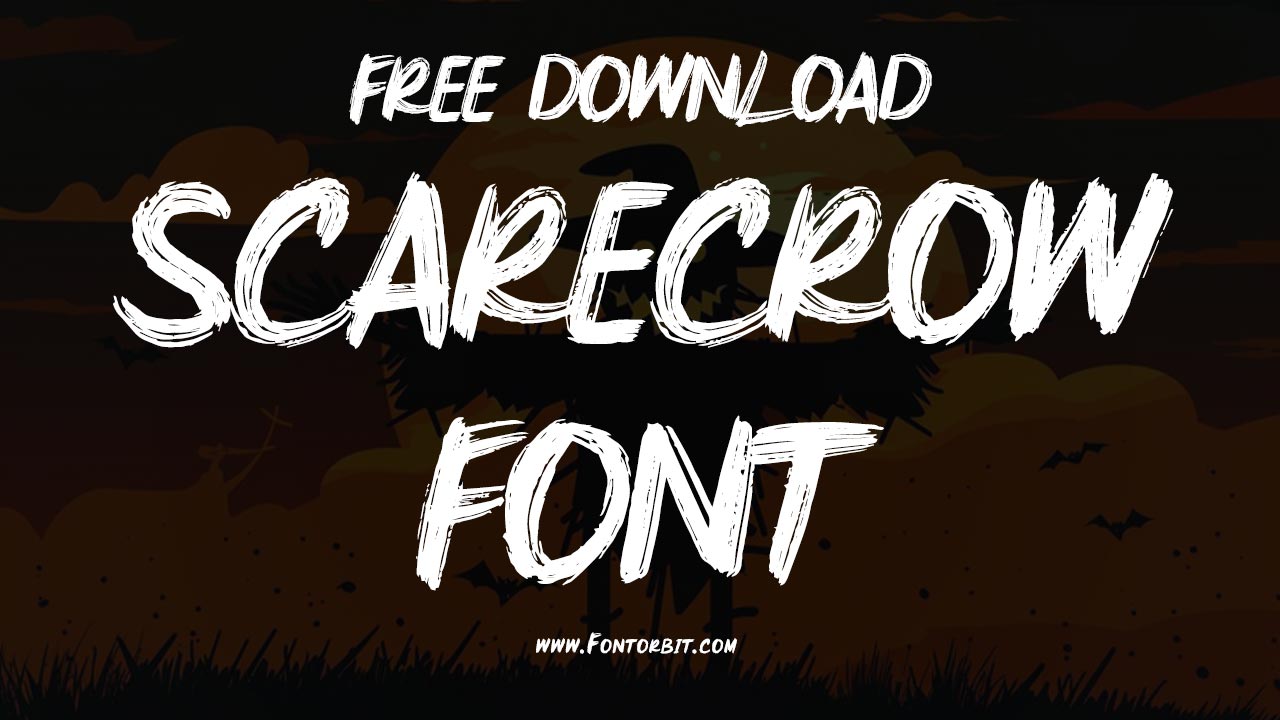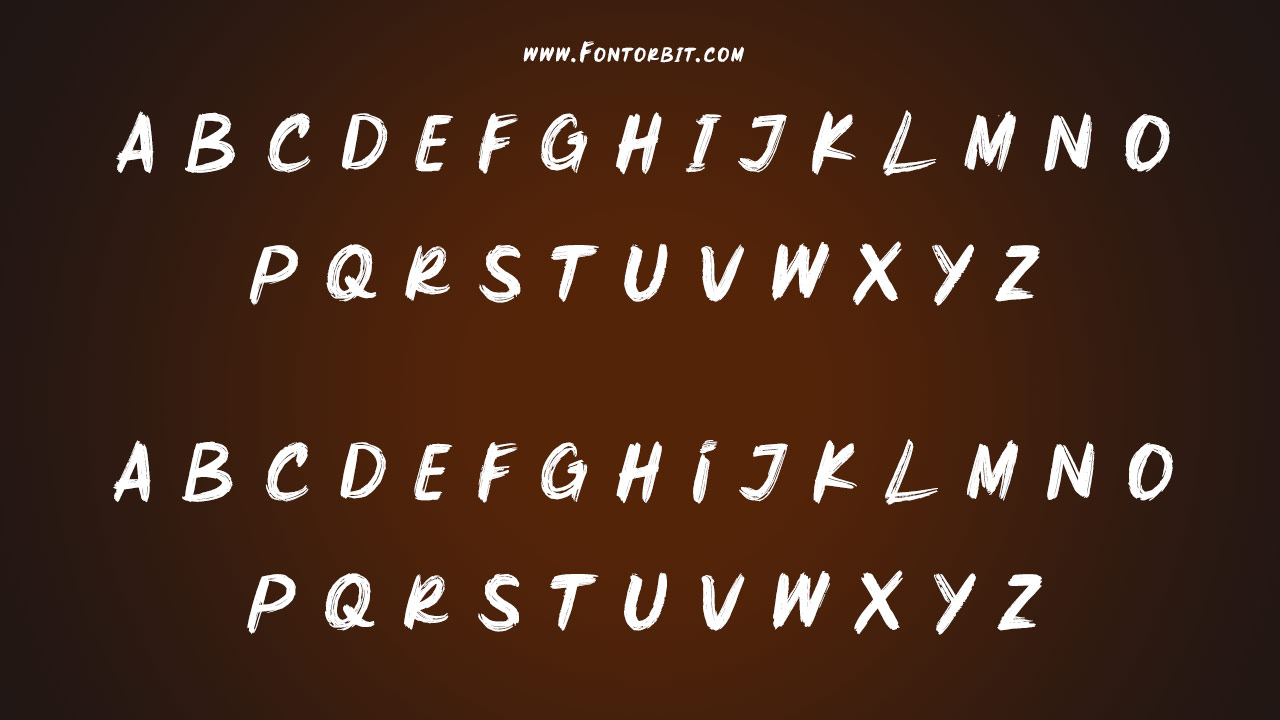
The Scarecrow Font, designed and shared by Scratch Design, is a dynamic and energetic brush font that brings a raw, street-wise aesthetic to any project. With its authentic dry ink brush texture, Scarecrow Font captures the essence of hand-crafted lettering, making it perfect for a wide range of creative applications.
This vibrant brush font is characterized by its bold, dry ink brush strokes, adding a rugged and energetic feel to any design. Ideal for posters, clothing design, product packaging, labels, film titles, and impactful quotes, Scarecrow Brush offers a unique and authentic look that stands out in any context.
- Poster Design
- Band Merchandising
- Clothing Design
- Product Packaging
- Label Design
- Film/Movie Titles
- Quotes
Scarecrow Font excels in bringing a burst of energy and authenticity to designs. Its realistic brush effects and street-wise style make it ideal for projects where a bold, hand-crafted look is neccessary.
Scarecrow Font’s energetic and authentic brush style makes it a standout choice for a variety of bold and creative applications. Its dry ink brush texture adds a unique touch to your designs, ensuring they capture attention and convey a sense of raw energy.
Scarecrow Font is a high-energy brush typeface designed by Gitayogi Irhandi from Scratch Design, featuring authentic dry ink brush strokes that add a dynamic, street-wise character to your designs.
Use Scarecrow Font in larger sizes to fully showcase its bold brush strokes and energetic character. It works best for headlines, posters, and designs where a strong visual impact is desired.
Use Scarecrow Font for attention-grabbing elements like headlines and logos. Ensure it’s complemented by simpler fonts for body text and maintain legibility across various sizes and media.
Pair Scarecrow Font with clean, sans-serif fonts like Helvetica or Arial for balance. Use Scarecrow for headings and the complementary font for body text to maintain readability and visual harmony.
Scarecrow Font may appear less legible at very small sizes or on low-resolution screens. Ensure adequate size and contrast to maintain readability across devices and screen sizes.